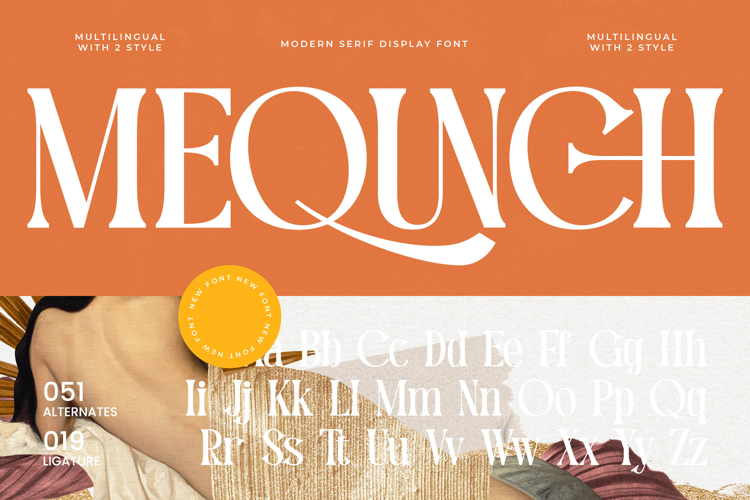
Mequnch - Modern Serif Display Font
Unveil a new standard of typographic elegance with Mequnch - Modern Serif Display Font. This exquisite typeface masterfully blends timeless serif sophistication with a contemporary edge, featuring high-contrast strokes and graceful curves that command attention. Designed for impact, its distinct character forms and robust serifs convey an immediate sense of luxury and refined artistry, making it an indispensable asset for visual communication that truly stands out.
Experience unparalleled design flexibility with Mequnch - Modern Serif Display Font, crafted to elevate every creative endeavor. Boasting an impressive collection of 51 alternates and 19 ligatures, this font offers rich stylistic variations to tailor your message with precision and flair. With its extensive multilingual support, Mequnch - Modern Serif Display Font adapts seamlessly across global markets, making it incredibly versatile for international projects and ensuring your brand speaks every language with consistent elegance.